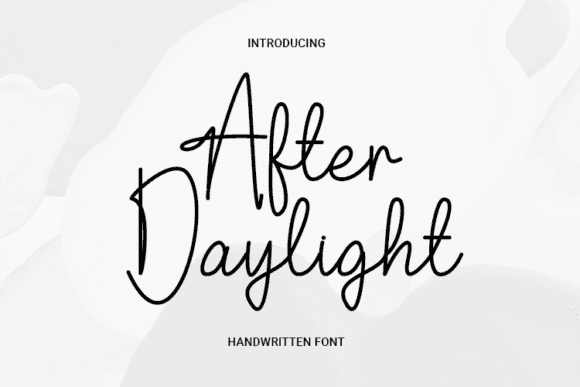
After Daylight Font for Crafting, Logos and Print Projects
This is a delicate and expressive handwritten font created to enhance personalized designs. After Daylight brings a heartfelt aesthetic to crafting, logo development, and refined print layouts.
As a font entity, it stands out with flowing characters and a natural rhythm, ideal for wedding stationery, boutique branding, and handmade product packaging. It's easy to install and works seamlessly across crafting and design tools. Its versatility allows it to complement a variety of design styles while adding a touch of elegance to any project. This makes it a perfect choice for anyone looking to elevate their creations, especially when using the alfletter font for crafting. Whether you’re designing invitations or branding materials, this font ensures your work stands out beautifully.
Perfect for creators seeking elegance, versatility, and a signature-style impression in every word.
- Elegant logos and branding assets
- Wedding invitations and save-the-dates
- Printed cards, labels, and signage
- Custom apparel and craft gifts
- Journals, planners, and printable decor
- Handwritten elegance with natural flow
- Perfect for logos, wedding suites, and crafts
- Balanced for both print and digital aesthetics
Q: What type of font is After Daylight?
A: After Daylight is a handwritten script font with elegant, flowing strokes ideal for crafts and print design.
Q: Will it look good in printed projects?
A: Yes, the font is crafted for clarity and style in high-resolution print formats.
Q: Is it good for feminine or romantic designs?
A: Definitely. Its soft curves and signature style make it perfect for romantic, elegant, and boutique visuals.